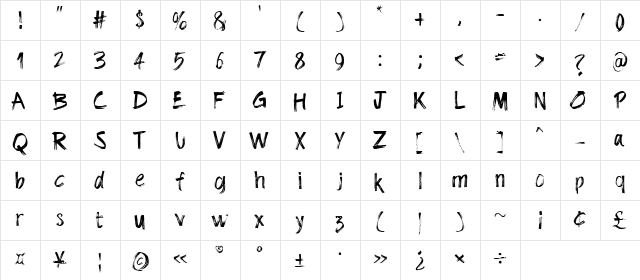
The Dolbak Brush
| Style | Brush |
| Foundry | Richard Khuptong |
| Designer | Richard Khuptong |
Design Context for The Dolbak Typeface
The Dolbak brings a calligraphic fluidity to the page — its connecting strokes and expressive curves give it an unmistakably human quality.
Font Pairing: Combine The Dolbak with a simple geometric sans for maximum contrast — the tension between flowing curves and clean structure is a classic typographic pairing.
Pro Tip: Use The Dolbak for short runs of text — names, titles, or taglines. Extended body copy in script faces tires the eye quickly.